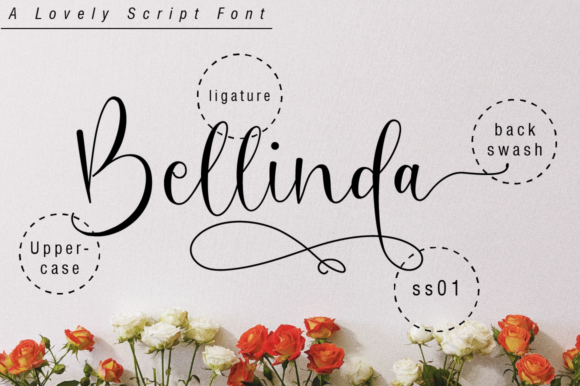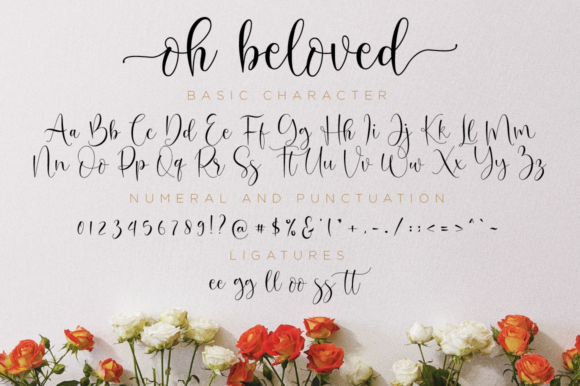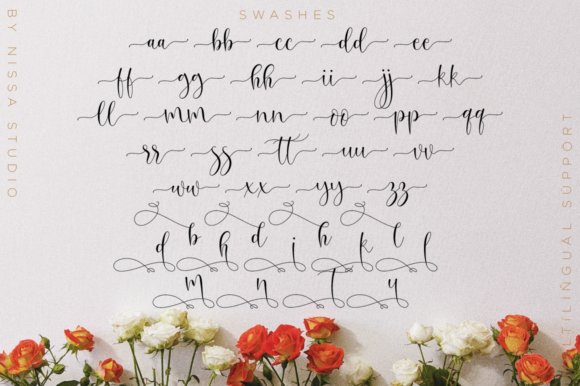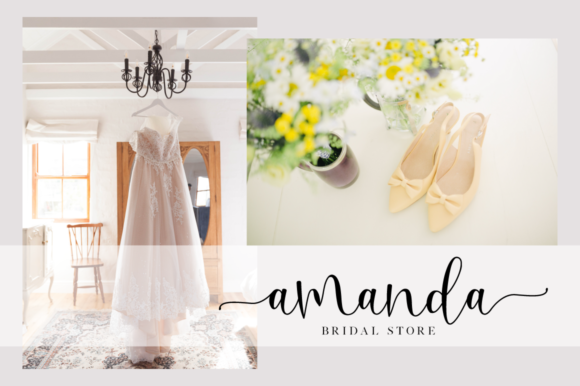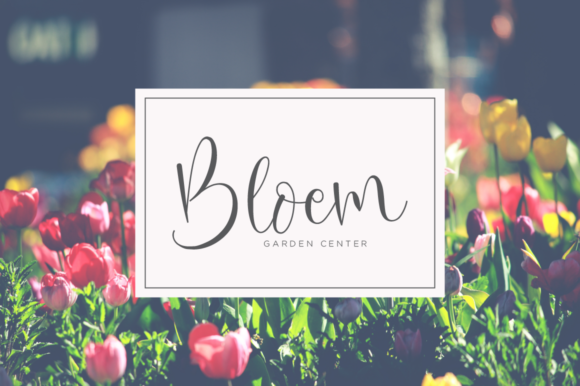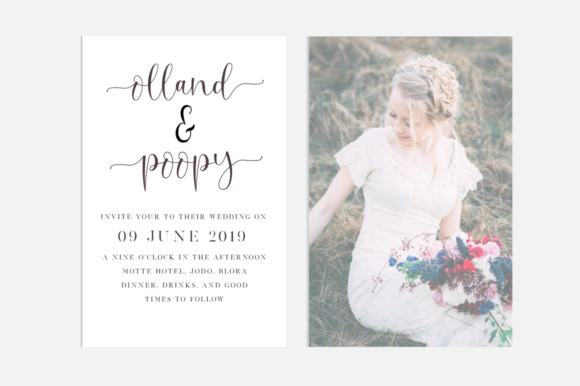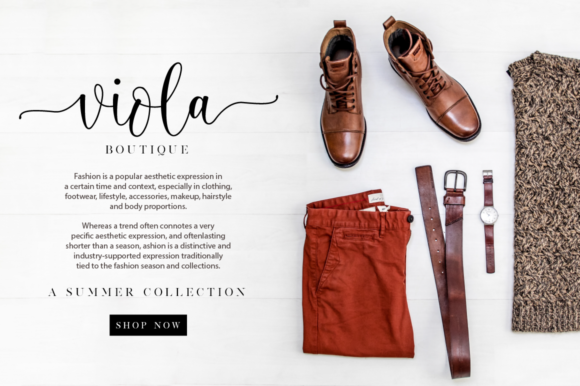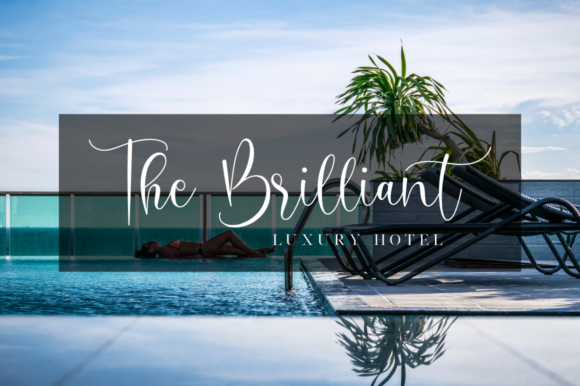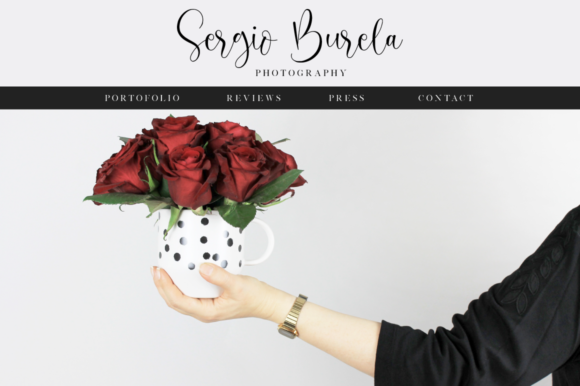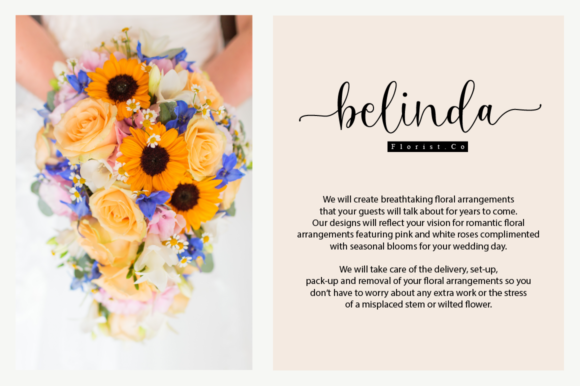
Oh Beloved Font
About Oh Beloved Font
Oh Beloved is a beautiful script font with a classy, elegant, and modern look. It will add a personal touch to any design project!